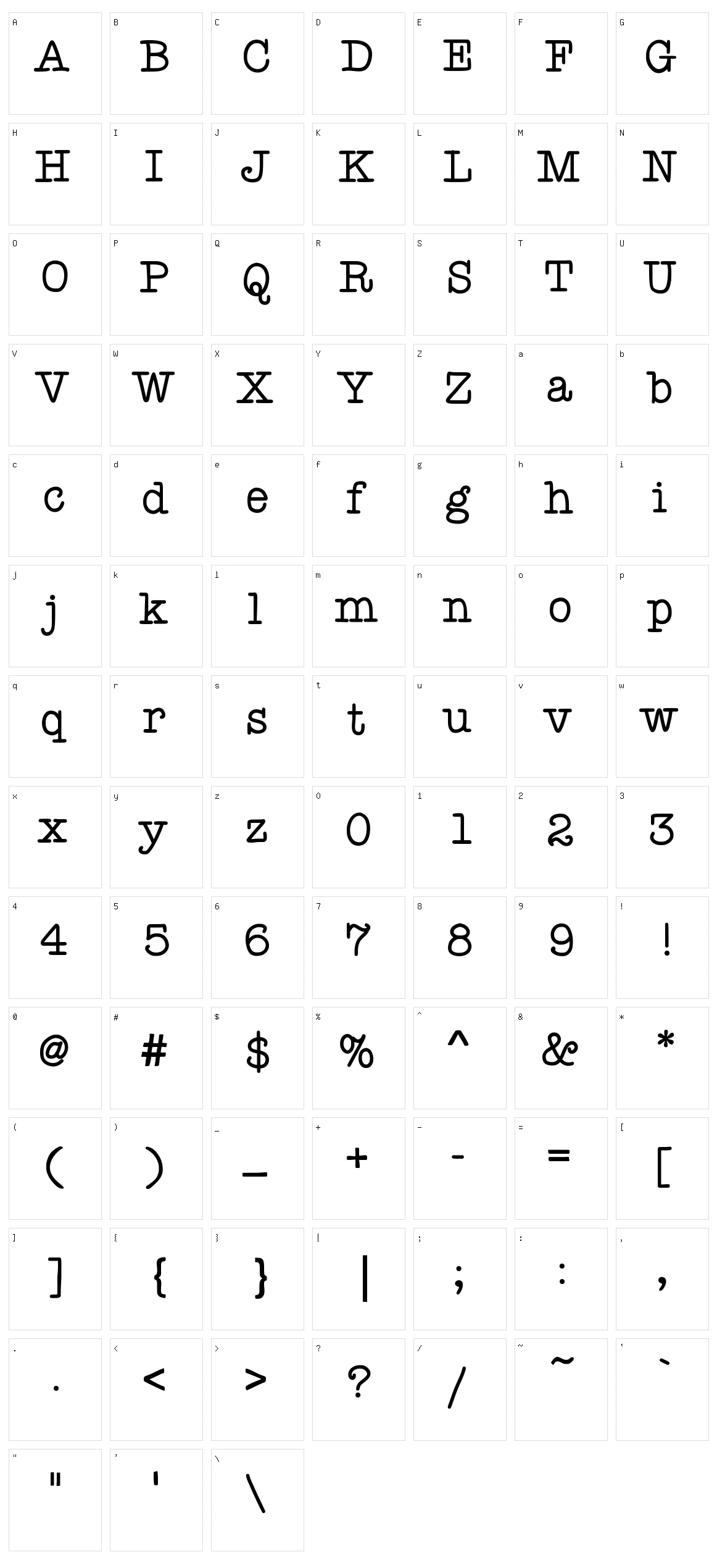
The free font KB You're Just My Type is carefully designed by Khrys Bosland, showcasing a thoughtful balance of creativity and usability and falls under the Typewriter font style. When you download the ZIP file, it contains only 33.18 KB of font files, making it lightweight and quick to download. Please review the license details below to understand permitted usage and distribution rights. If license information is not available, we recommend using this font for personal projects only or contacting the author directly for commercial usage permissions.